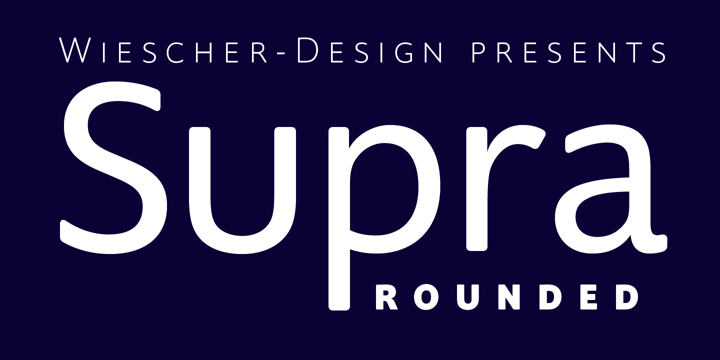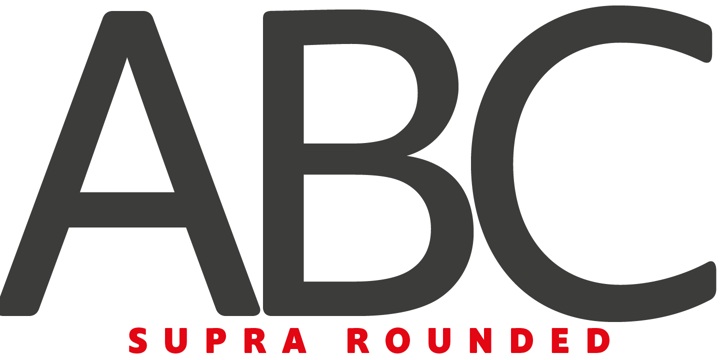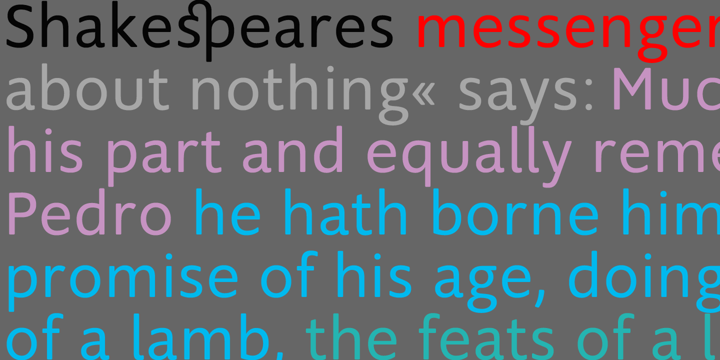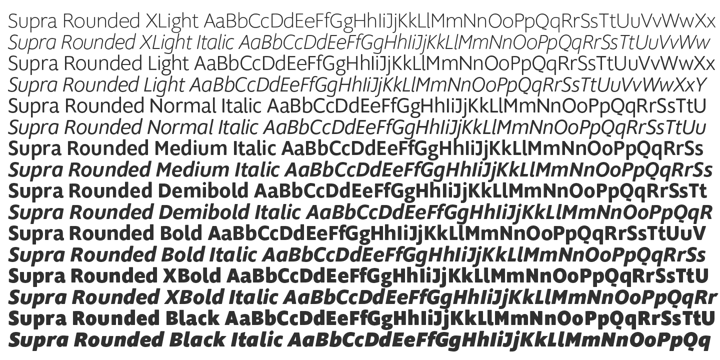
Supra Rounded
Font Family by Wiescher Design
?Supra Rounded? is the newest addition to my big SUPRA-family. It really rounds of the huge family with a friendly design, that makes it an excellent and elegant text-typeface. It is an OpenType family for professional typography with an extended character set of over 700 glyphs and extensive kerning. It supports more than 40 Central- and Eastern-European as well as many Western languages (except Greek and Cyrillic). Ligatures, different figures, fractions, currency symbols and small caps can be found in all cuts.